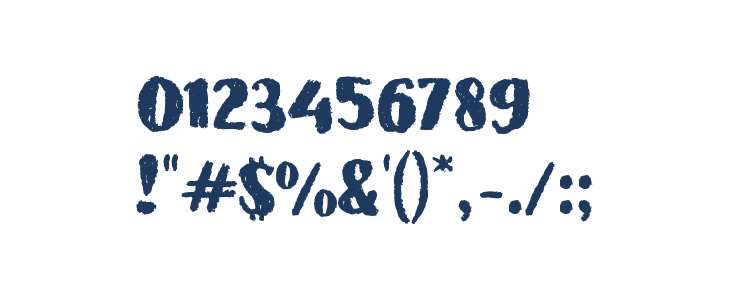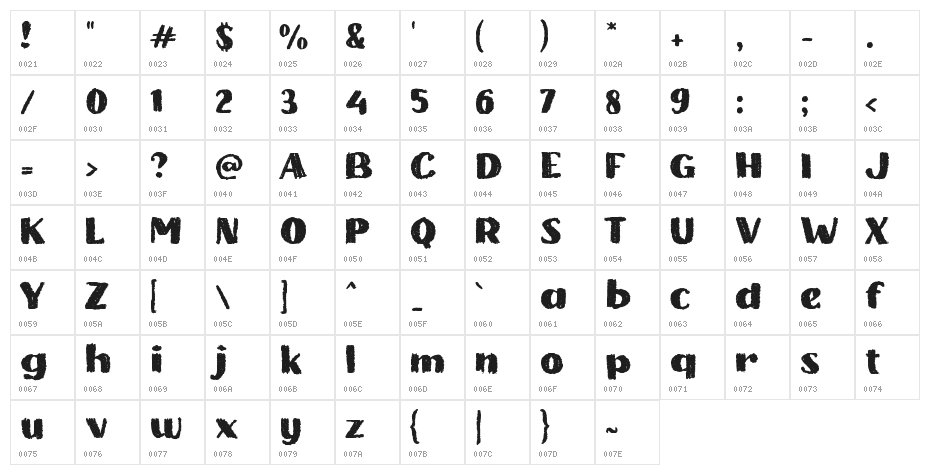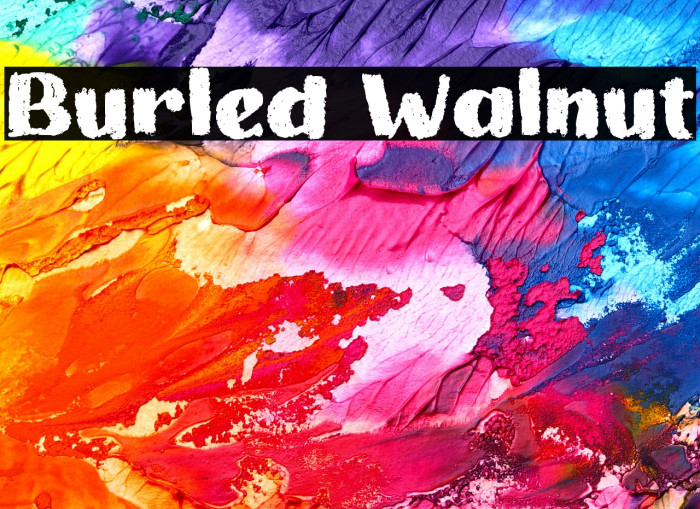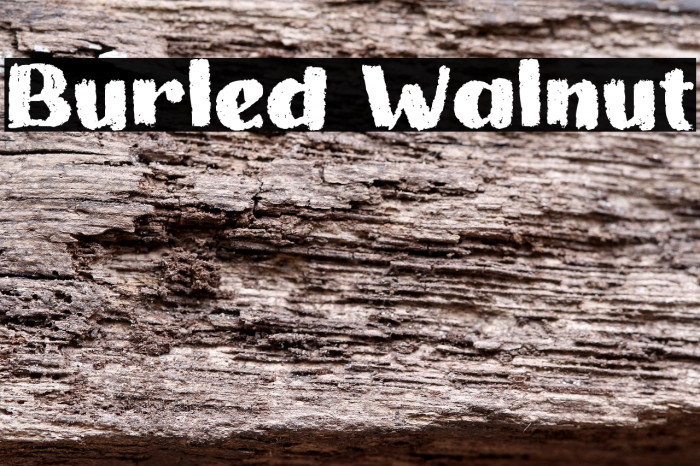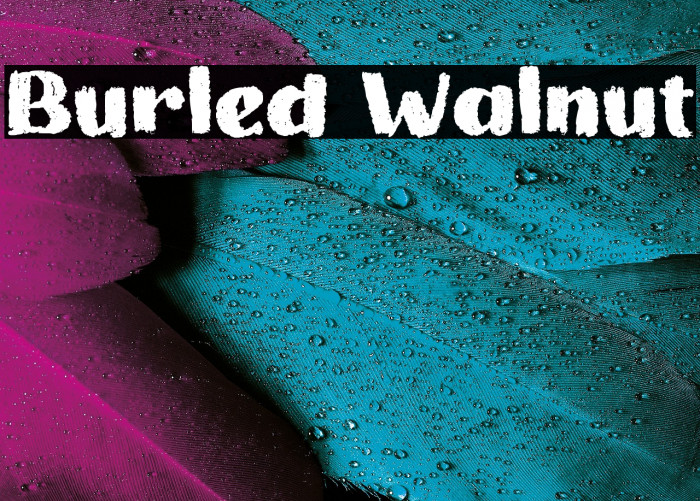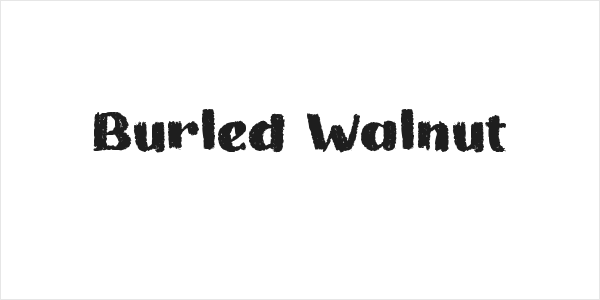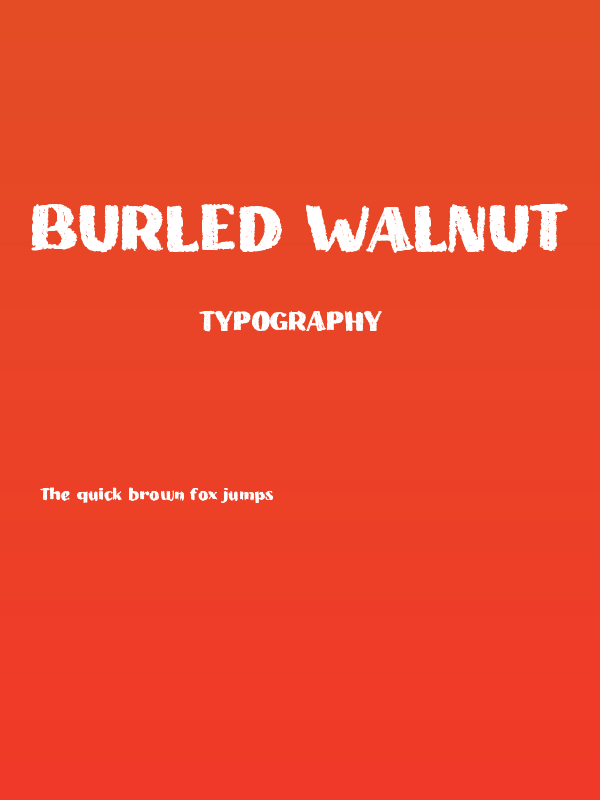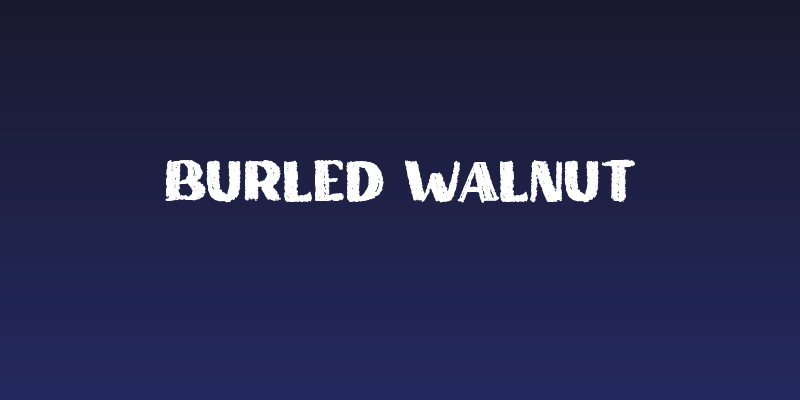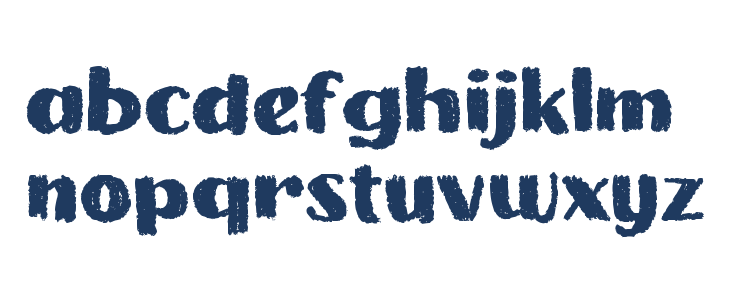
Burled Walnut Font
Burled Walnut Description
This font exhibits a bold, textured appearance reminiscent of hand-painted or distressed lettering. The characters are robust and slightly irregular, giving them a dynamic and organic feel. The uppercase and lowercase letters maintain a consistent weight, contributing to a cohesive look. The numerals and special characters share the same textured style, ensuring uniformity across all glyphs. This font's unique texture and bold presence make it stand out, ideal for projects that require a rustic or handcrafted aesthetic.
| Overall Style | Rustic, Handcrafted |
| Proposed Projects | Ideal for branding, posters, packaging, and any design that benefits from a rustic or handcrafted aesthetic. |